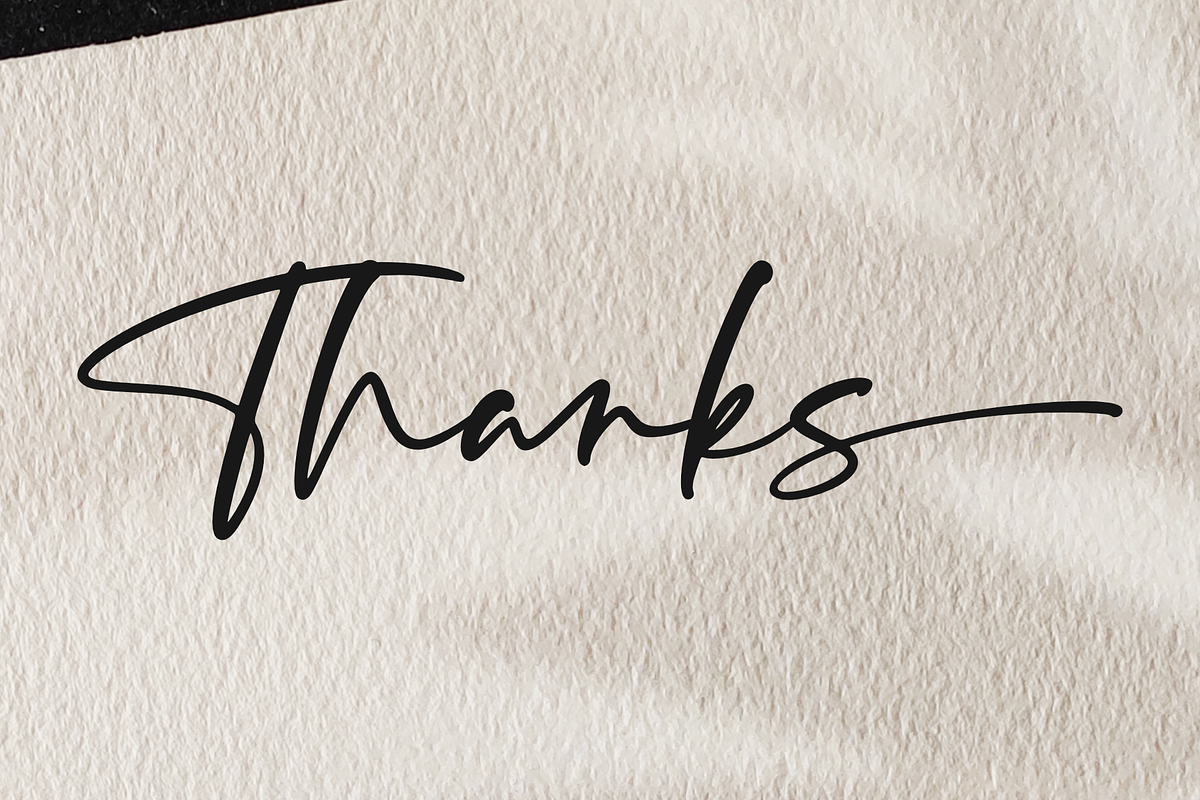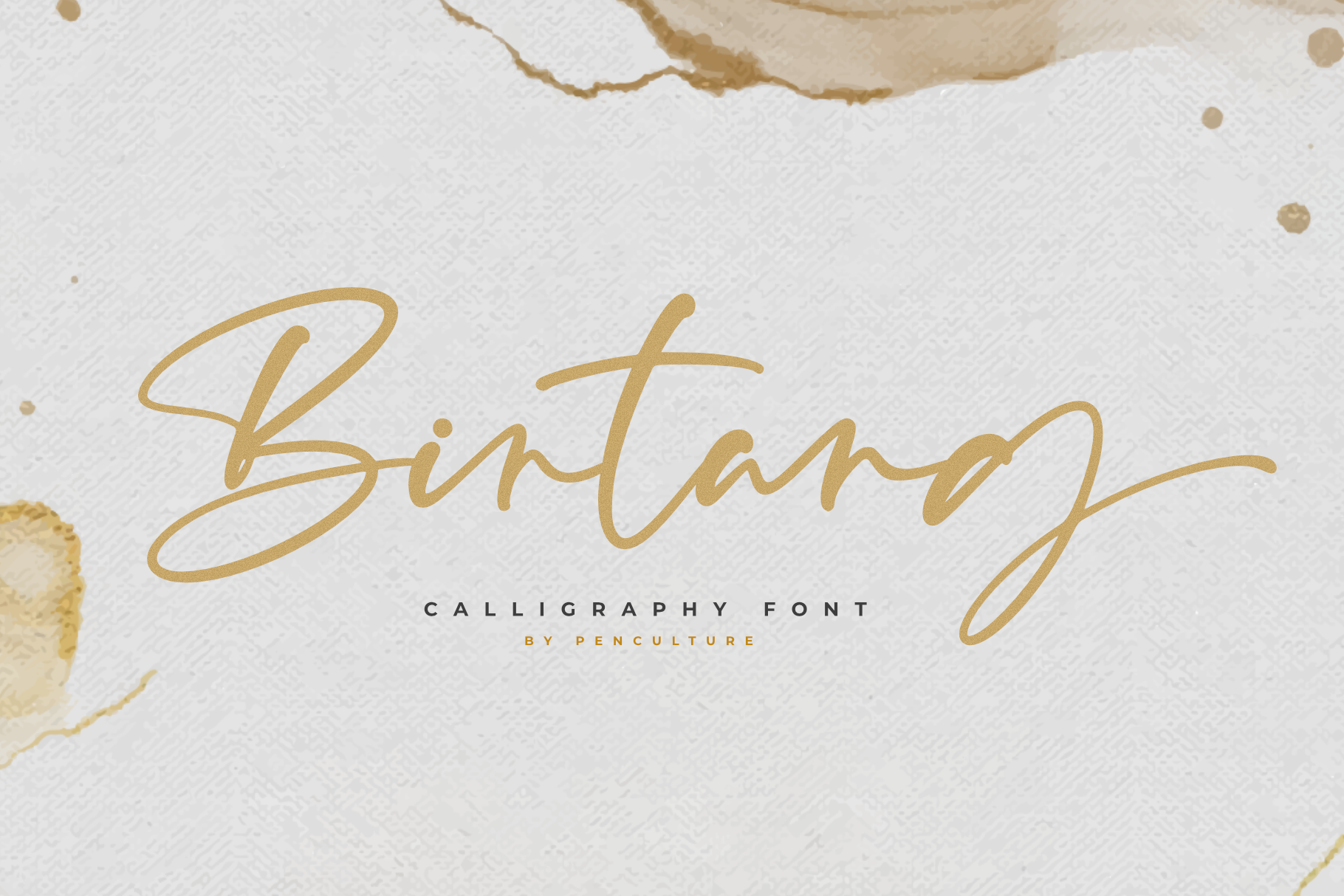
Bintang | Sweet Calligraphy Font
introducing the new font called bintang. Bintang have the meaning of stars, this font has a very distinctive and iconic shape. This font is perfect for logos / brands, posters, and more.
- All Caps
- 74 Iconic Ligature
- Beautiful Swashes